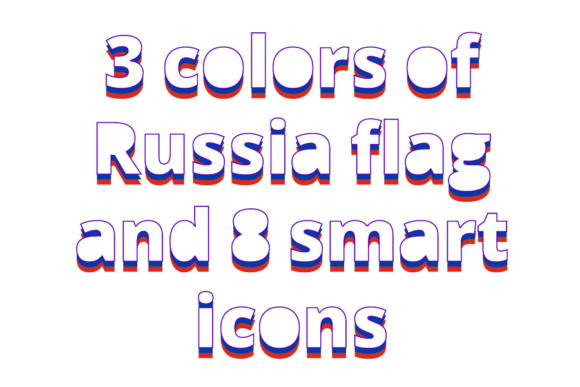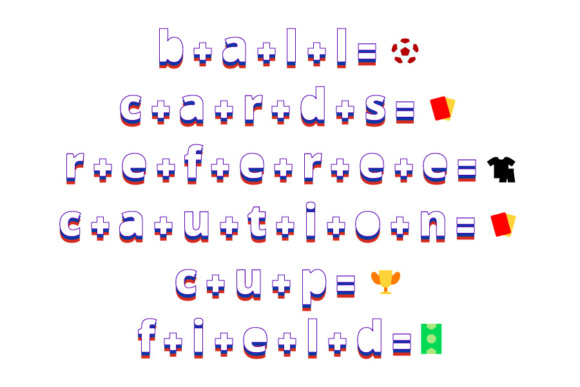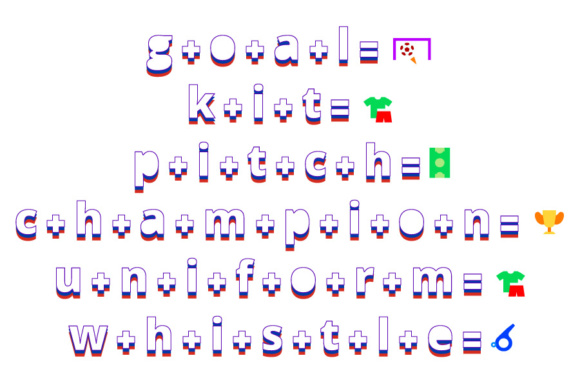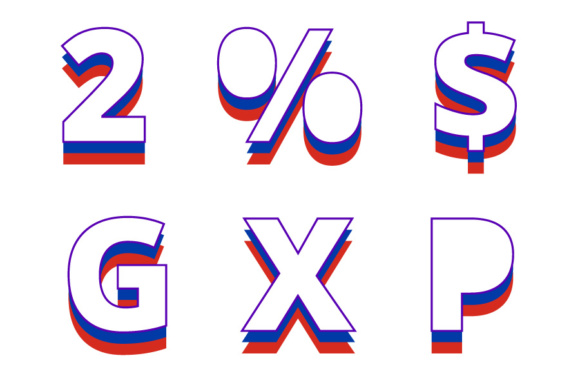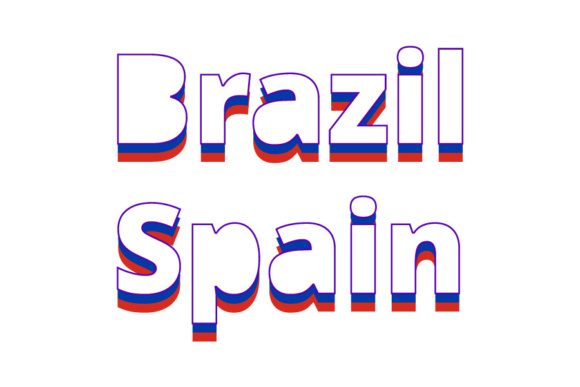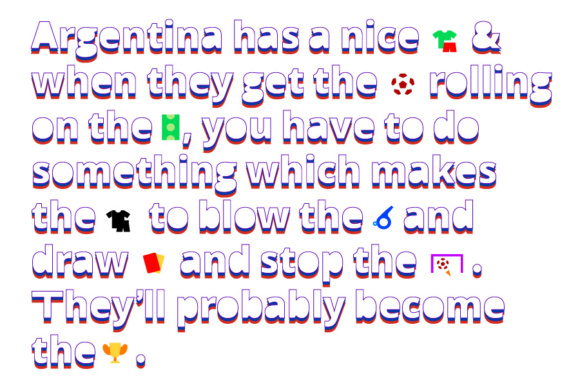
Introduction to FontBall Font
Who isn’t excited by the World Cup 2018.
This amazingly festive color font is a great way to give your work a charming and easy feel This is a 3 layer color font inspired by the host country’s flag and comes with 8 smart icons.